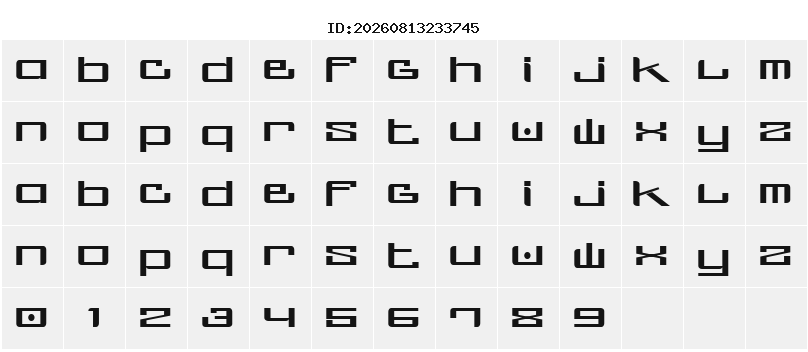
screw ups Preview
• Font Name: screw ups
• Font Style: uprock
• Font ID: Macromedia Fontographer 4.1 screw ups uprock
• Full Font Name: screw ups uprock
• Version: Macromedia Fontographer 4.1 Vershun 1-3/18/99
• PostScript Name: Screwupsuprock
About screw ups.ttf
screw ups.ttf is a modern, elegant sans-serif font designed for ultimate readability and visual harmony. Perfect for branding, headlines, web design, and print materials.